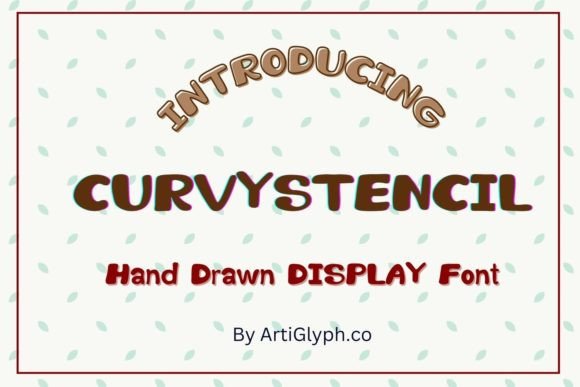
Introducing Curvy Stencil Font: The Perfect Addition to Your Design Projects
In the world of typography, fonts play a crucial role in conveying the tone and personality of a design. With the vast array of fonts available, it can be challenging to find the perfect one that adds a touch of uniqueness to your project. However, if you’re looking for a modern, cute, and handwritten font with a fun and quirky personality, look no further than Curvy Stencil Font.
What is Curvy Stencil Font?
Curvy Stencil Regular is a modern cute handwritten font with a fun and quirky personality. Its irregular and playful letterforms create a sense of whimsy and individuality, making it perfect for designs that require a touch of uniqueness. This font is designed to add a charming and personal feel to any project, making it ideal for a wide range of applications, from branding and packaging to social media graphics and website designs.
Key Features of Curvy Stencil Font
So, what makes Curvy Stencil Font stand out from the rest? Here are some of its key features:
- Modern and Cute Design: Curvy Stencil Font boasts a modern and cute design that’s perfect for designs that require a touch of playfulness and whimsy.
- Handwritten Style: The font’s natural, handwritten style adds a charming and personal feel to any project, making it perfect for designs that require a human touch.
- Irregular and Playful Letterforms: The font’s irregular and playful letterforms create a sense of individuality and uniqueness, making it perfect for designs that require a touch of personality.
- Versatile: Curvy Stencil Font is versatile and can be used for a wide range of applications, from branding and packaging to social media graphics and website designs.
Use Cases for Curvy Stencil Font
Curvy Stencil Font is perfect for a wide range of design projects, including:
- Branding and Packaging: The font’s unique and playful design makes it perfect for branding and packaging projects that require a touch of personality.
- Social Media Graphics: The font’s modern and cute design makes it perfect for social media graphics, such as Instagram posts and Facebook graphics.
- Website Designs: The font’s natural, handwritten style makes it perfect for website designs that require a touch of personality and whimsy.
- Invitations and Party Decor: The font’s playful and irregular design makes it perfect for invitations and party decor, such as birthday party invitations and wedding decorations.
Benefits of Using Curvy Stencil Font
So, why should you use Curvy Stencil Font for your design projects? Here are some of the benefits:
- Unique and Playful Design: The font’s unique and playful design adds a touch of personality to any project, making it stand out from the rest.
- Easy to Read: Despite its playful design, Curvy Stencil Font is easy to read, making it perfect for designs that require a touch of personality and legibility.
- Versatile: The font’s versatility makes it perfect for a wide range of applications, from branding and packaging to social media graphics and website designs.
- Time-Saving: Using a pre-designed font like Curvy Stencil Font saves time and effort, as you don’t have to spend hours designing a font from scratch.
Tips for Using Curvy Stencil Font
Here are some tips for using Curvy Stencil Font effectively:
- Use it for Headings and Titles: The font’s playful design makes it perfect for headings and titles, adding a touch of personality to any project.
- Pair it with a Simple Font: Pairing Curvy Stencil Font with a simple font creates a beautiful contrast and adds visual interest to any design.
- Experiment with Colors: The font’s playful design makes it perfect for experimenting with different colors and color combinations.
- Use it for Branding: The font’s unique design makes it perfect for branding projects, adding a touch of personality to any brand.
In conclusion, Curvy Stencil Font is a modern cute handwritten font with a fun and quirky personality. Its irregular and playful letterforms create a sense of whimsy and individuality, making it perfect for designs that require a touch of uniqueness. With its natural, handwritten style and versatile design, Curvy Stencil Font is perfect for a wide range of applications, from branding and packaging to social media graphics and website designs. So, if you’re looking for a font that adds a touch of personality and whimsy to your design projects, look no further than Curvy Stencil Font.